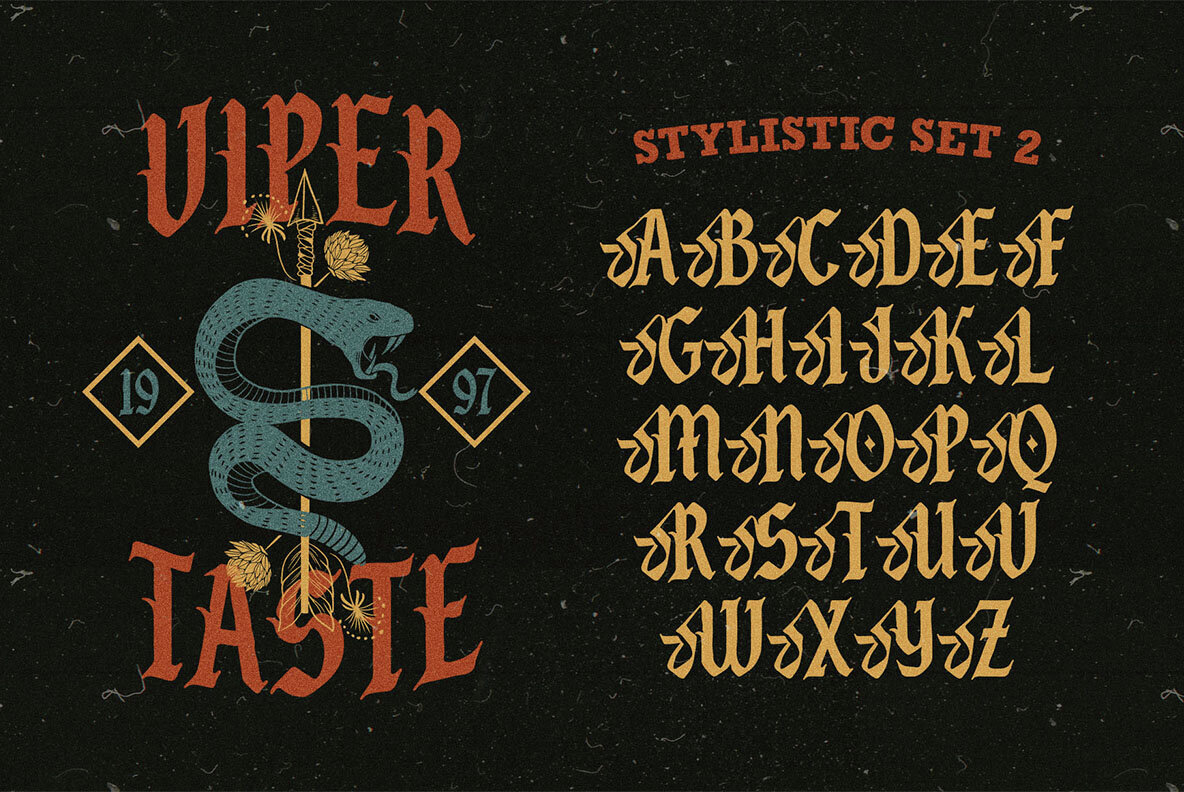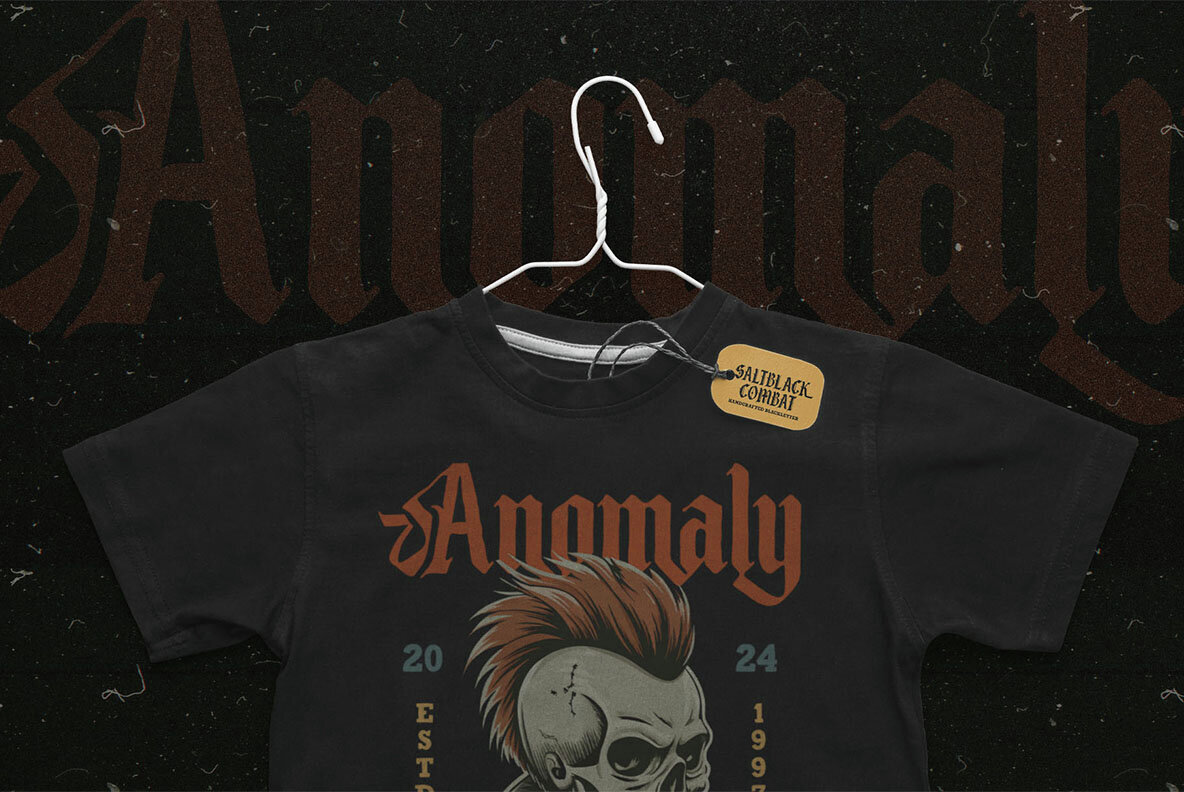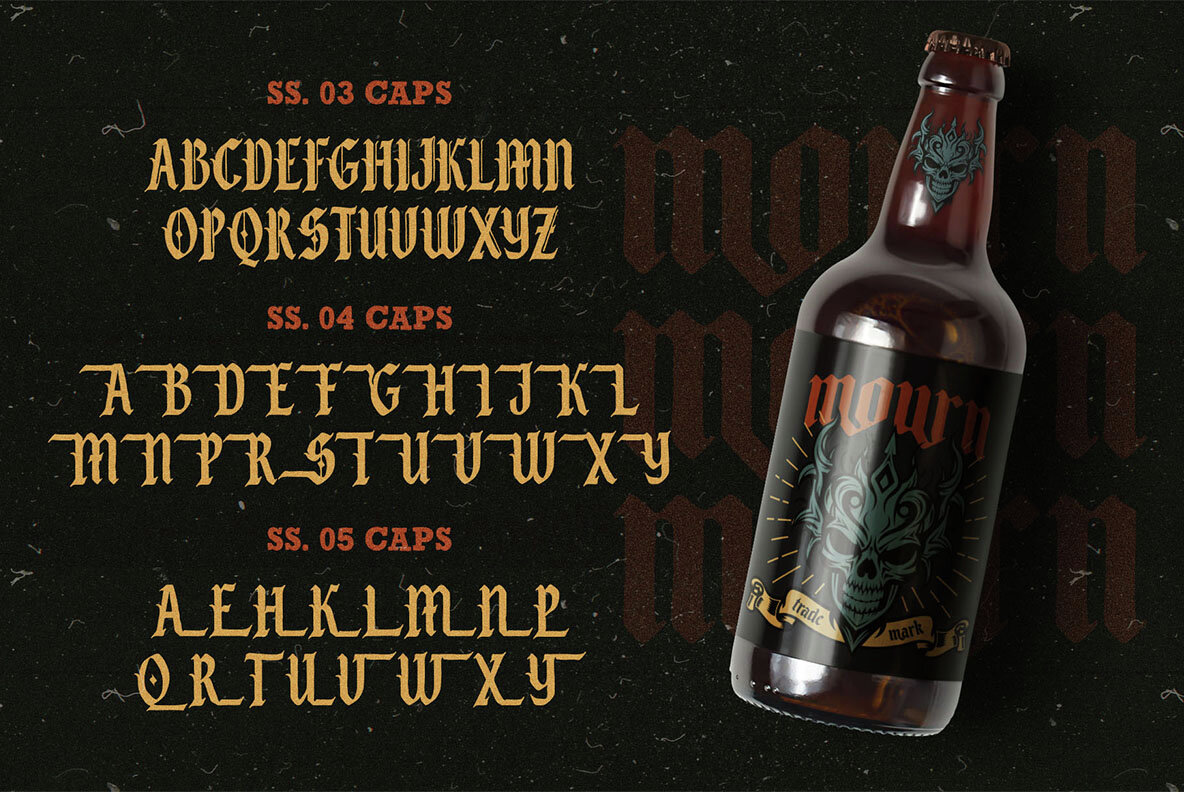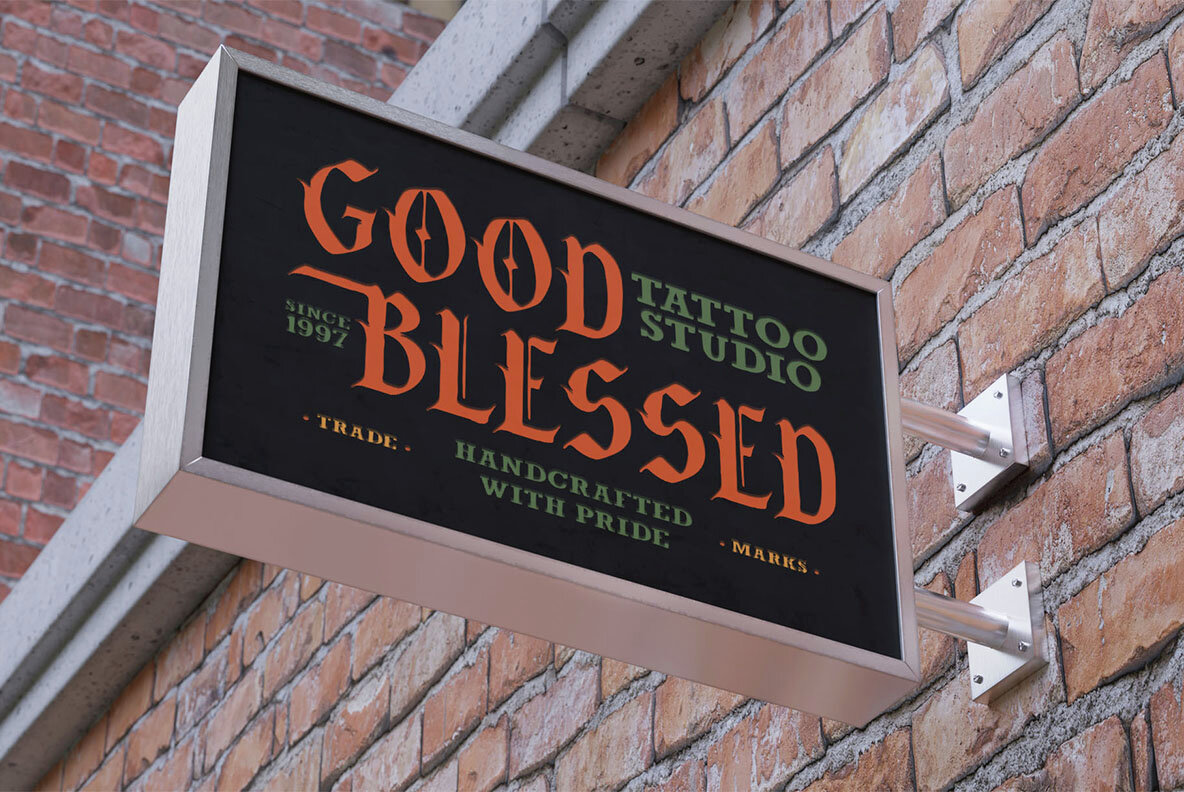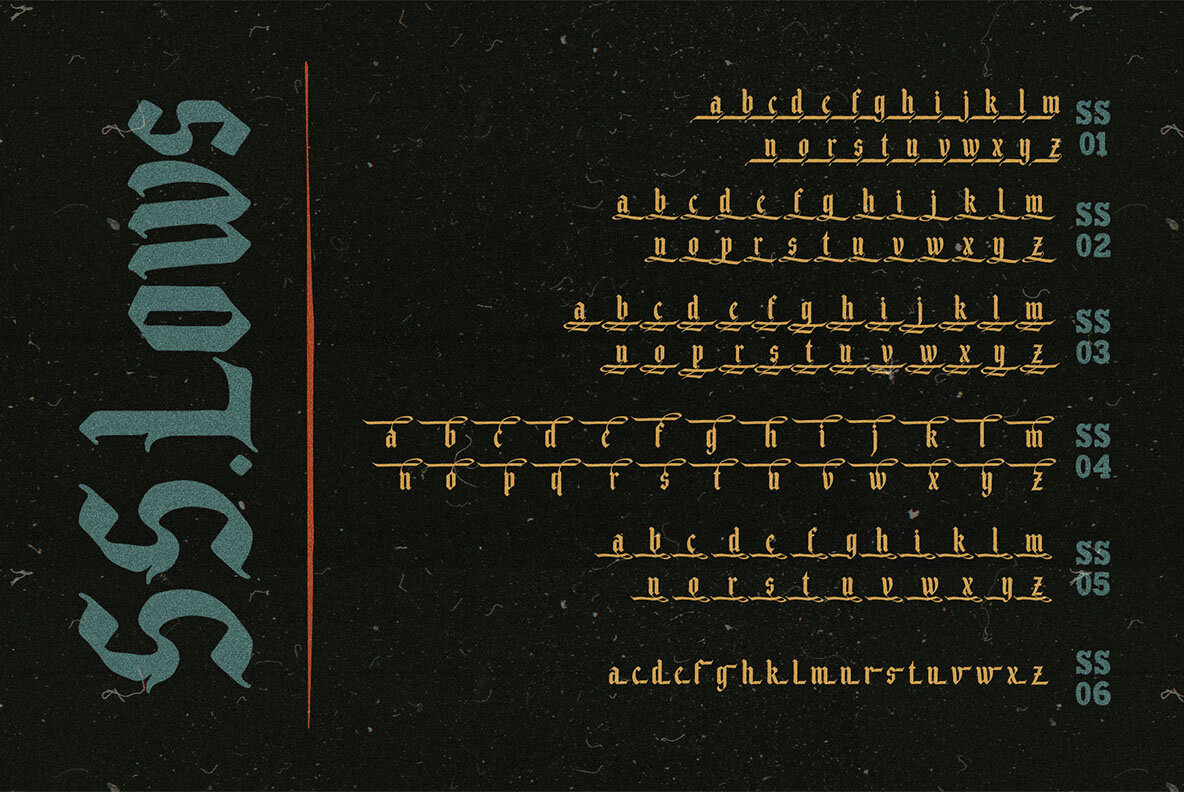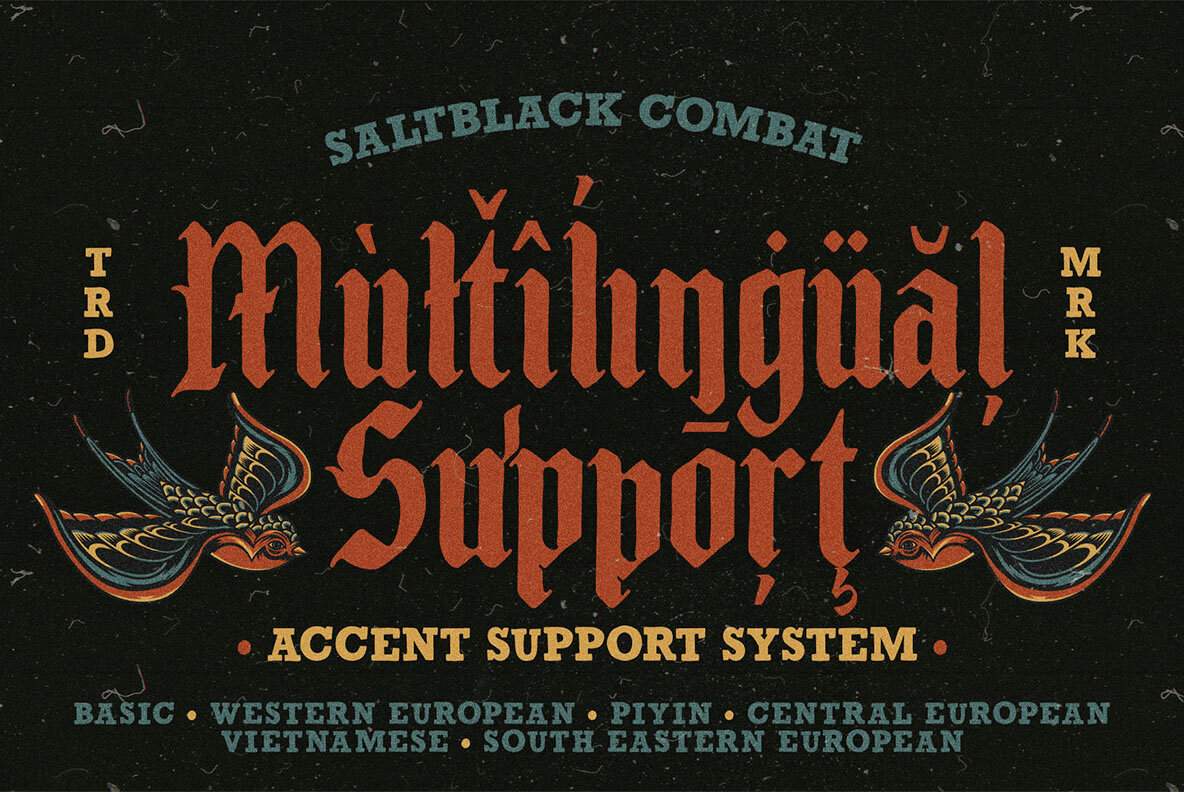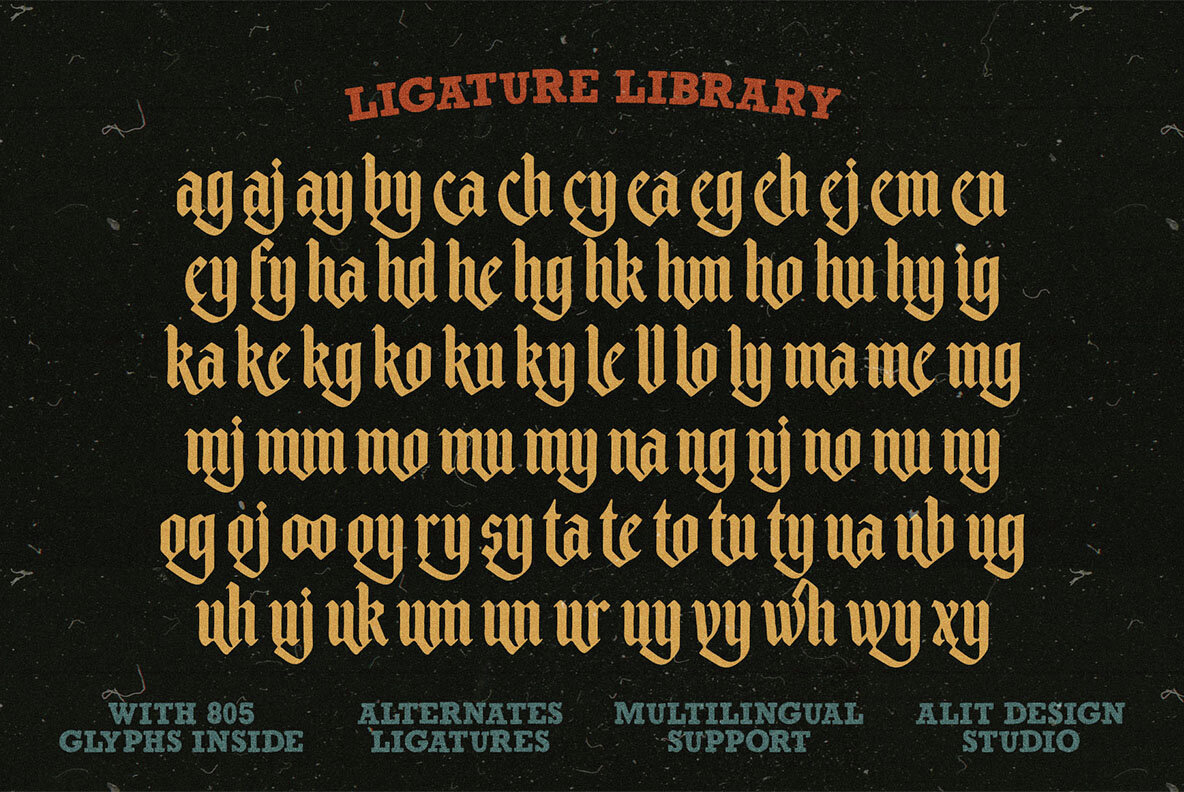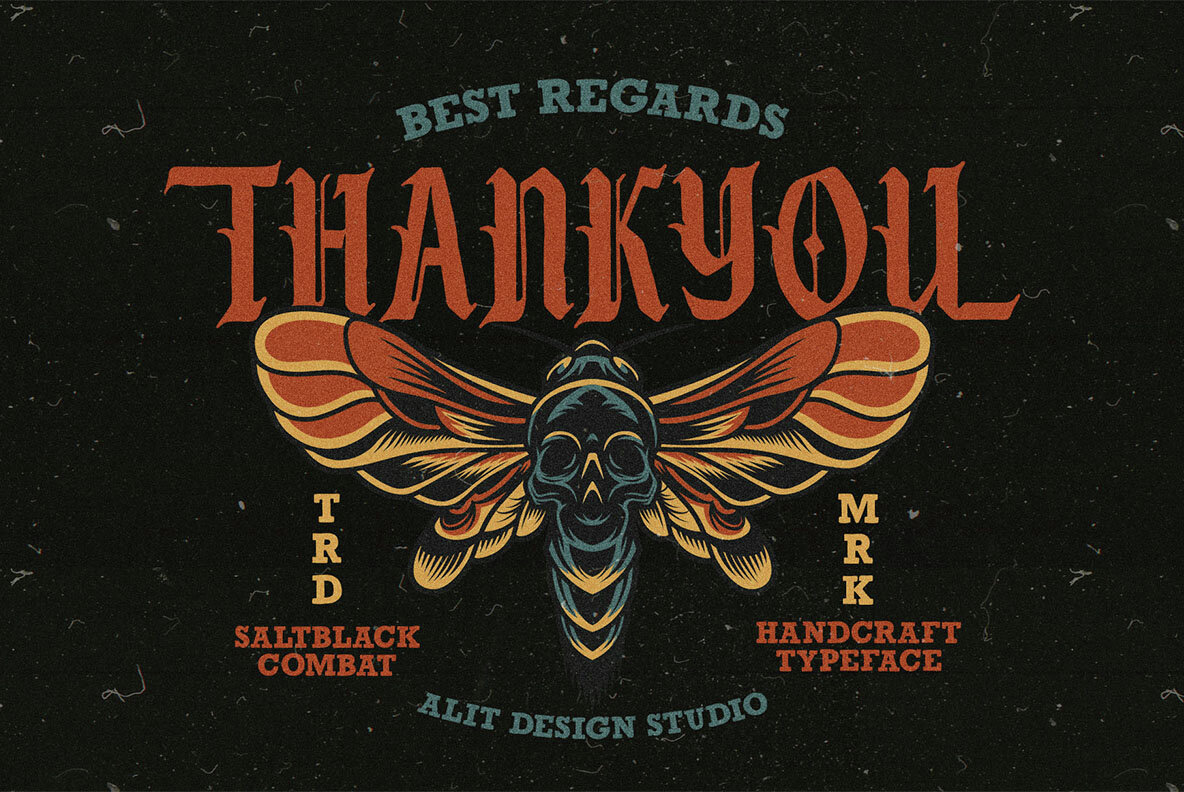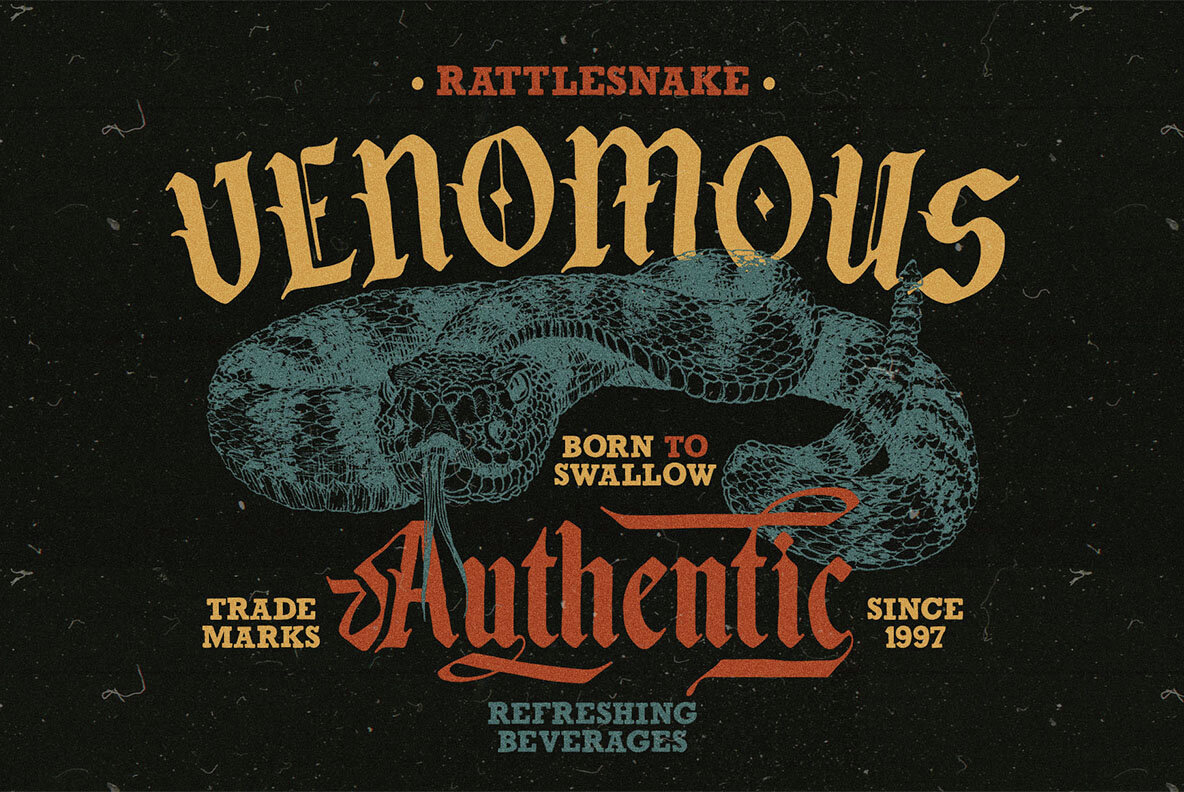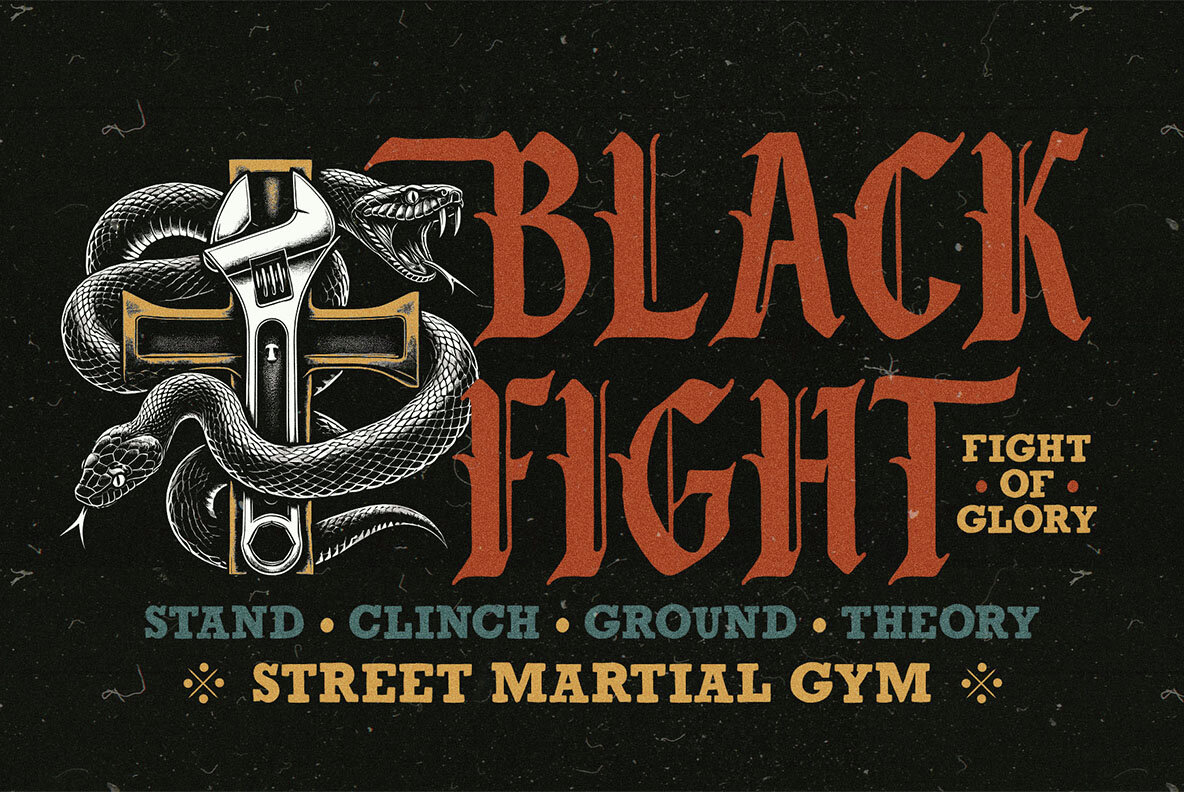
Salt Black Combat Font
expand_font Salt Black Combat Font Salt Black Combat: A vintage-inspired blackletter font with history, power, and creative versatility for graphic designers. Rough,Display,Blackletter,Stamp,Vintage,Old,Retro,Gothic,Medieval Explore Exceptional Fonts for Digital and Traditional Media Fontpath offers a large variety of fonts for every designer, all at affordable prices and in multiple formats. Browse our best in class fonts today for all your creative needs, you can find everything you need right here at our site! Fonts,sans,sans serif,retro,script,decorative,title,FontPath 20140312040223 Fontpath offers 200,000+ of the most professional fonts found online, start downloading today! Real-Time Font Discovery at Fontpath